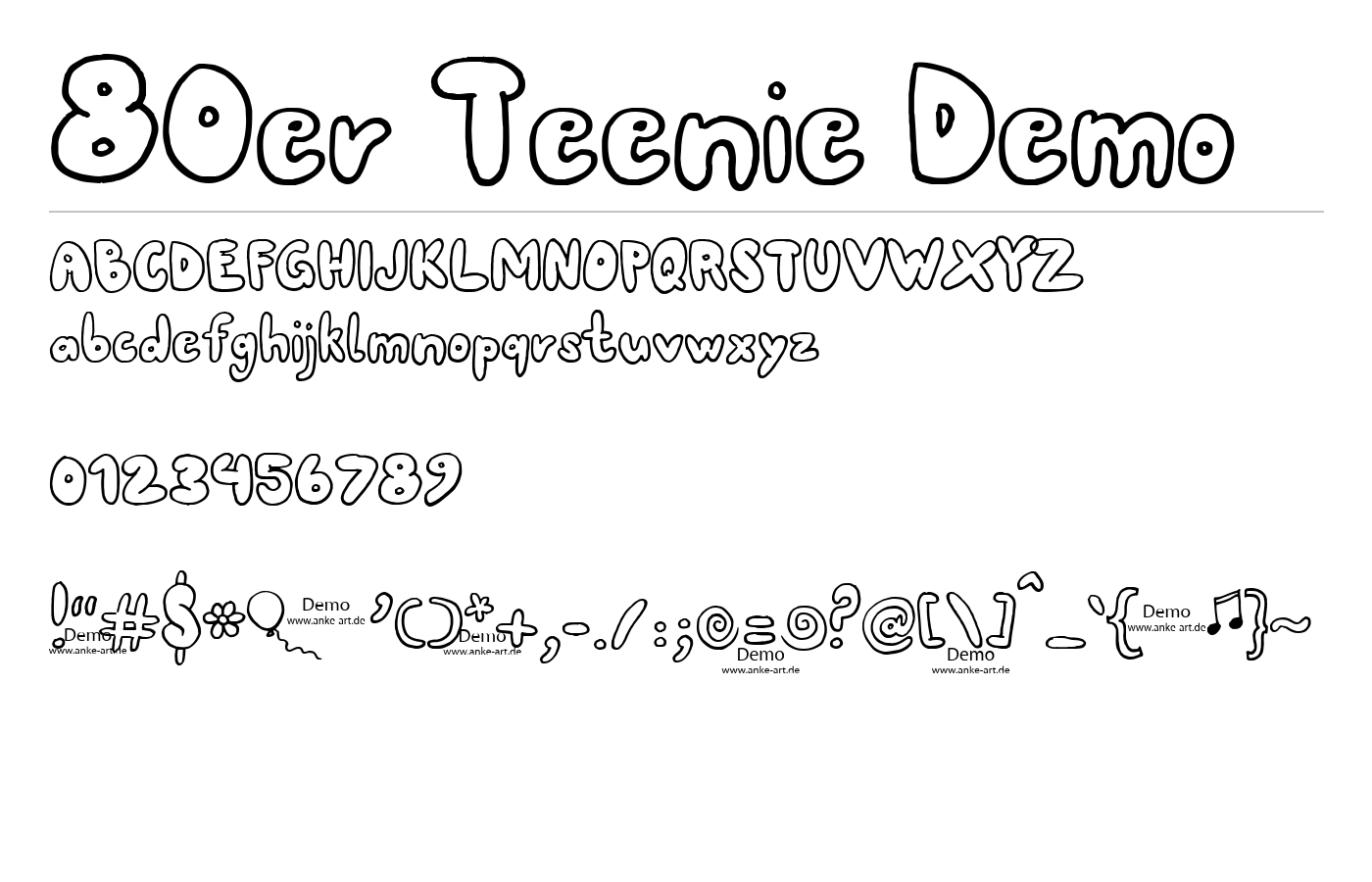
80er Teenie Demo is a playful and casual handwritten sans serif font, featuring rounded, bouncy letterforms with uneven strokes that evoke a fun, youthful vibe. Its irregular shapes and whimsical details make it perfect for creative projects that need an informal, approachable look, especially for children's materials, party invitations, and retro-themed designs. The font's light weight and open spacing ensure it works well in display use where personality and charm are key.
80er Teenie Demo Font
About 80er Teenie Demo Font
| Font family | 80er Teenie Demo Font |